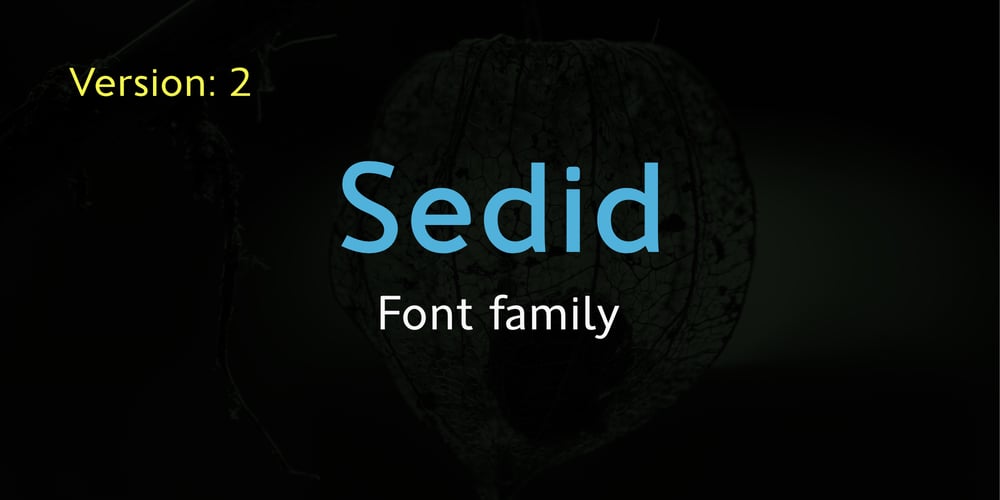
Sedid Font Family was designed by İsmail AYDIN and published by Fontuma. Sedid contains 60 styles and family package options. Sedid TypefaceSedid is an Arabic concept meaning “solidity; truth”. The truth and solidity of a word is especially indicated with this word. I gave this name to the font family because I wanted to point out its truth and solidity. The sans serif Sedid font also serves very different design purposes thanks to the sixty styles it contains. In terms of the weights it offers, the Sedid font has Light, Regular, Medium, Semibold, Bold and Extrabold styles. All these weights also support the Condensed, Narrow, Normal, Wide and Expanded styles from narrow to wide. Thus, the Sedid font is a family consisting of seventy or sixty styles. The Sedid font has gained many innovations and improvements with the second version. The design of most of the glyphs in the font, especially the Arabic fonts, has been renewed, and thus the font has a more stable and aesthetic structure. In addition, the font has gained new opentype features with the second version and the existing opentype features have also been improved. The opentype features added to the Sedid font are as follows:● Slashed zero● Old style● Localized forms● Standard Ligatures/Dicretionary Ligatures/Historical Ligatures● Numerator● Denominator● Fraction/Alternate fraction● Ordinal (a-z)● Small capital● Small capital from capitalThe Sedid font family can be used in all publishing and printing areas, in magazines, newspapers, books, poster and poster designs, and as text and title fonts on websites. Sedid also has a nice-looking, flexible, soft-lined and transitional face. The inner and outer spaces of the font are proportioned to ensure comfortable reading of the text. As Fontuma Foundry, we actually designed this user-friendly font not for the happiness and comfort you will feel when pressing the keyboard keys.